Looking for the perfect modern serif font to elevate your brand? In this curated list, I share 26 exceptional typefaces that blend classic elegance with contemporary sharp lines, ideal for luxury logos and high-fashion editorial designs.
Refined Letterforms Shaping Premium Brand Identities
Modern serif typography defines high-end visual culture through sharp contrast, delicate bracketed curves, and hairline terminals. This curated lineup features 26 distinguished typefaces structured around editorial elegance and timeless proportions. Brand directors, luxury packaging specialists, and graphic artists acquire an essential selection of sophisticated letterforms tailored for haute couture branding, boutique cosmetics, and high-contrast headlines.
1. Hanna Font: Where Minimalist Design Meets Sophisticated Typography
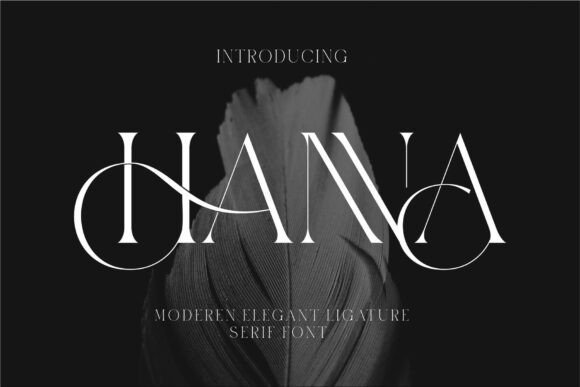
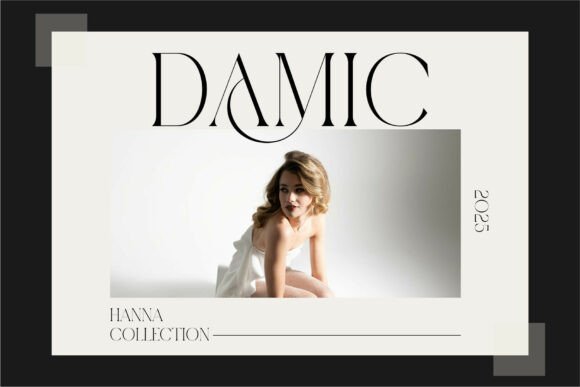
I designed my latest project around Hanna, a typeface that breathes new life into the modern serif font category. It captures that elusive balance between high-end editorial aesthetics and functional clarity. The striking ligatures and high-contrast strokes create a rhythmic flow that feels both intentional and artistic, making it a standout for anyone looking to move away from generic typography.
This versatile modern serif font is a premier choice for luxury branding, editorial layouts, wedding invitations, premium packaging, and high-fashion digital content. I love how the minimalist influence allows it to anchor a logo or a sophisticated brochure without overpowering the overall composition. Its distinct personality provides a polished, professional edge that instantly elevates any creative canvas.
2. Thorin: The Perfect Blend of Delicate Lines and Bold Style
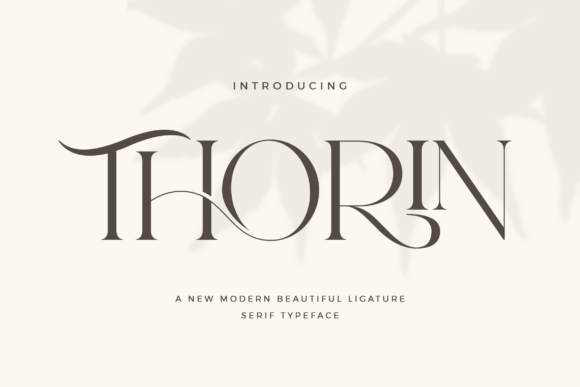
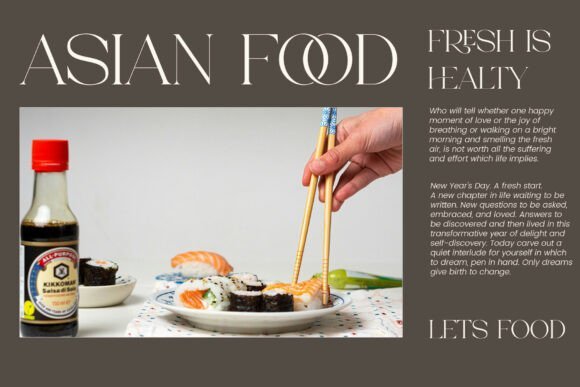
I reached for Thorin when I needed a typeface that spoke in a whisper rather than a shout. This modern serif font carries a delicate, classy energy that feels incredibly balanced—never too heavy, yet never too fragile to read. Its varied strokes and graceful curves bring a natural, rhythmic beauty to the page, making every word feel like it was placed with genuine intention.
I see this modern serif font working beautifully for high-end jewelry branding, luxury lifestyle magazines, wedding stationery, and boutique hotel signage. It excels in minimalist logo design or refined digital headers where elegance is the primary goal. The way it enhances the visual flow of a project makes it a reliable partner for sophisticated storytelling or premium fashion catalogs.
3. Hermione: Defining Sophistication Through Stylistic Ligatures
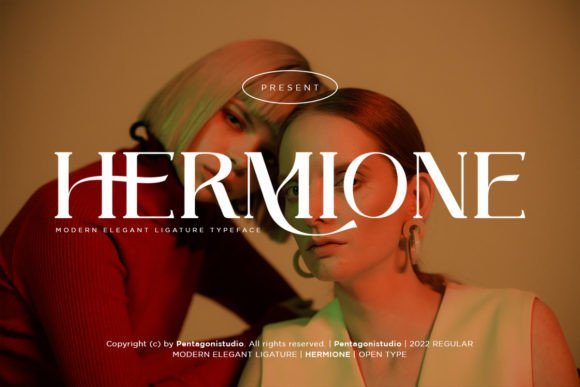
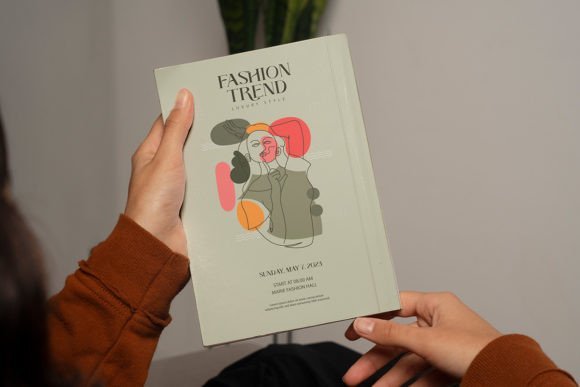
I selected Hermione for this collection because it perfectly demonstrates how a modern serif font can be both classic and incredibly expressive. What sets it apart is the extensive range of stylistic alternates and ligatures that allow for a truly custom feel. It carries a certain rhythmic elegance, with sweeping curves and sharp terminals that command attention without feeling overly aggressive on the page.
I highly recommend this modern serif font for high-fashion branding, glossy magazine covers, luxury skincare packaging, and artistic posters. It functions exceptionally well for sophisticated logos or event invitations where you want to highlight a unique personality. The ability to swap between standard characters and decorative alternates makes it an invaluable tool for creative storytelling or chic digital advertising.
4. Fresh Grapes: The Epitome of Sleek Modern Serif Design
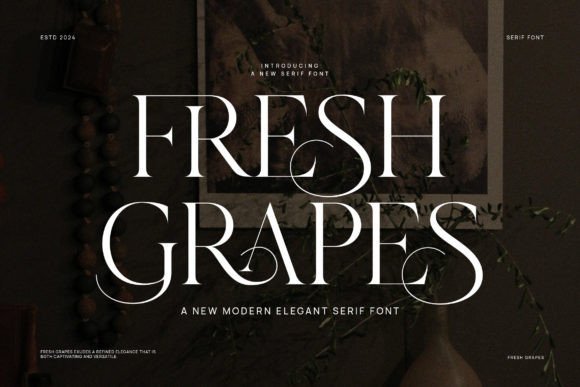
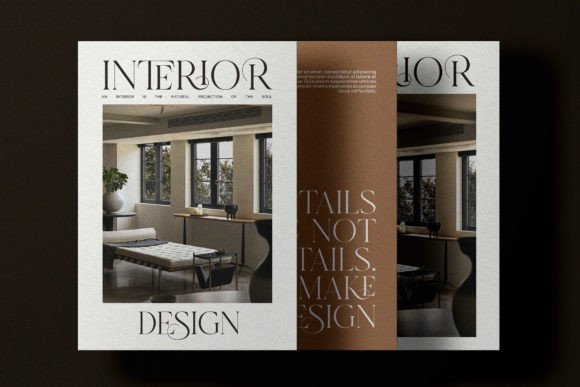
Integrating Fresh Grapes into my creative toolkit has completely transformed how I approach high-end layouts. This modern serif font draws inspiration from iconic minimalist logos, offering a clean yet deeply expressive aesthetic. The sharp contrast between the thick and thin strokes creates a sophisticated visual tension that feels expensive and perfectly curated for today’s design trends.
I rely on this modern serif font for editorial design, minimalist logos, luxury packaging, and beauty branding. It performs exceptionally well for advertising headers or refined wedding invitations where every detail matters. The way it balances timeless structure with contemporary flair makes it a go-to for interior design brochures or upscale social media graphics that need a touch of effortless class.
5. Rusilla Serif Font: Crafting Timeless Beauty for Premium Designs
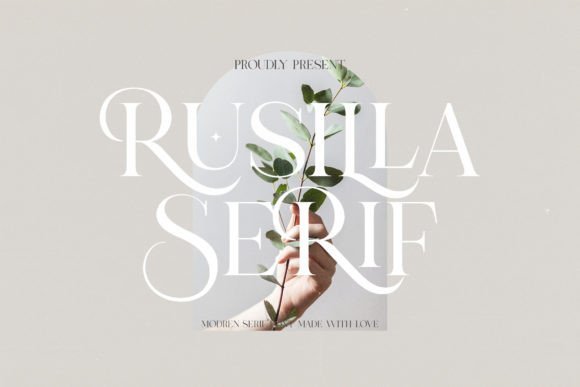
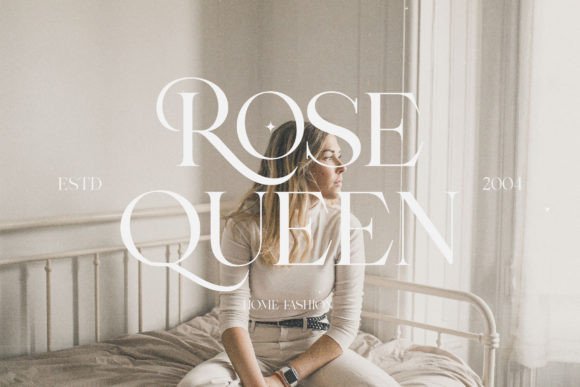
Discovering Rusilla Serif felt like finding the missing piece for projects that require a high-end, formal touch. This modern serif font stands out with its incredibly fluid ligatures and delicate, sparkling details that give every word a sense of movement. The stems are sturdy yet graceful, providing a balanced structure that ensures your text remains readable while looking like a custom piece of art.
Final Thoughts
I believe that the right typeface is a game-changer for any creative work. These 26 modern serif font choices provide the perfect blend of style and readability, ensuring your designs look professional, expensive, and always ahead of the curve.